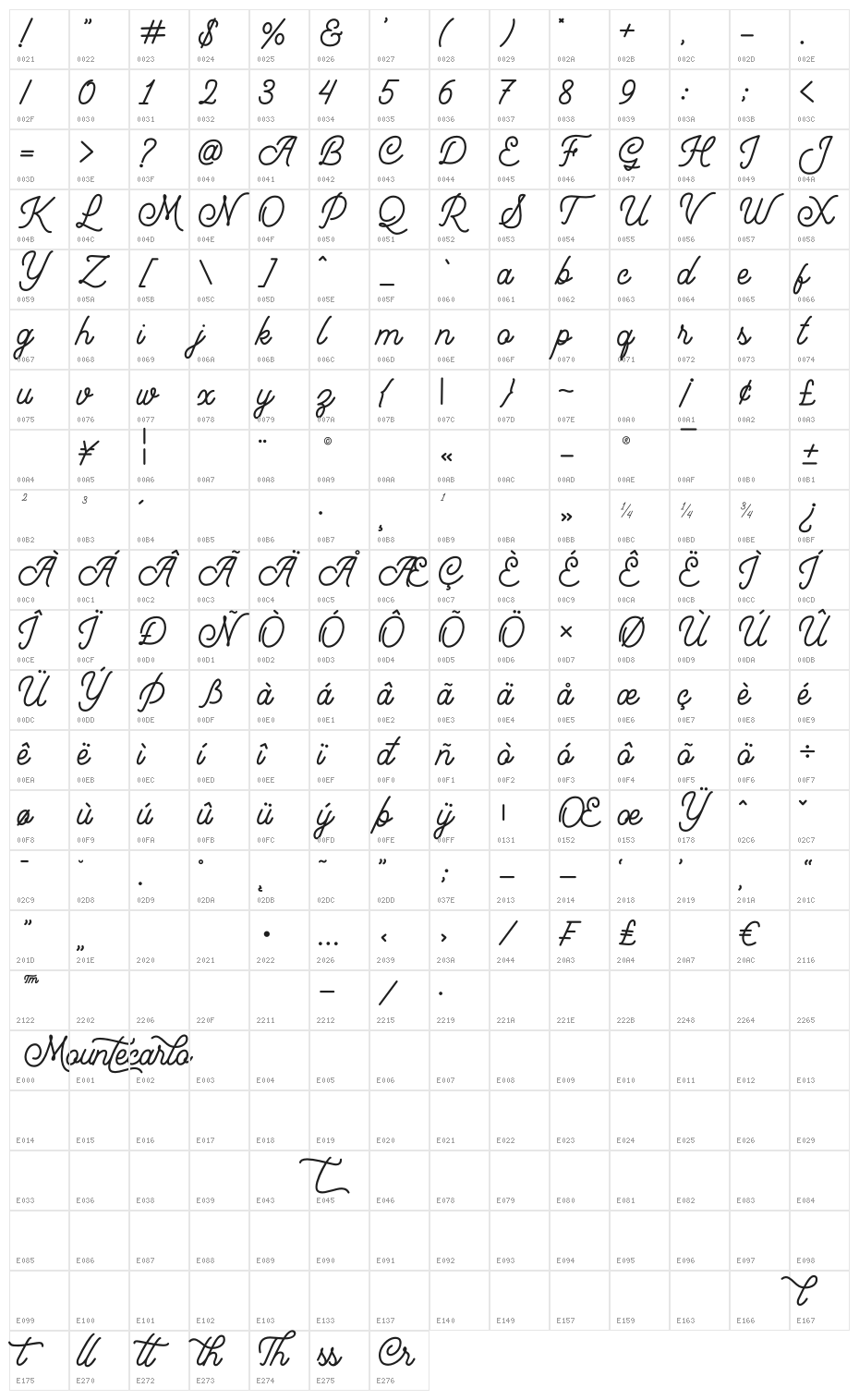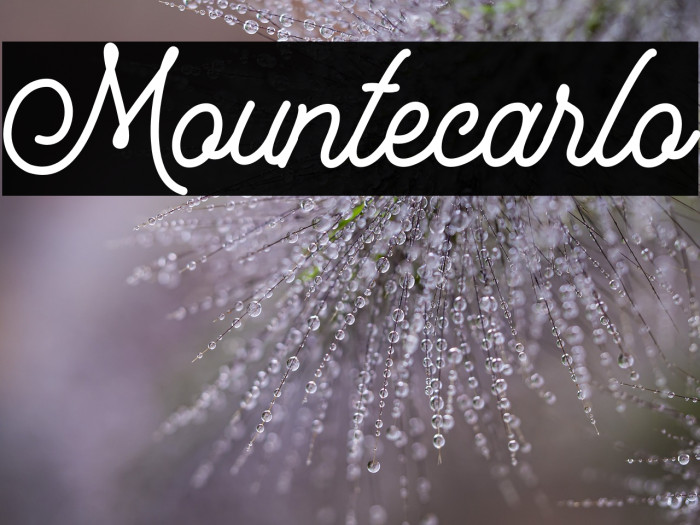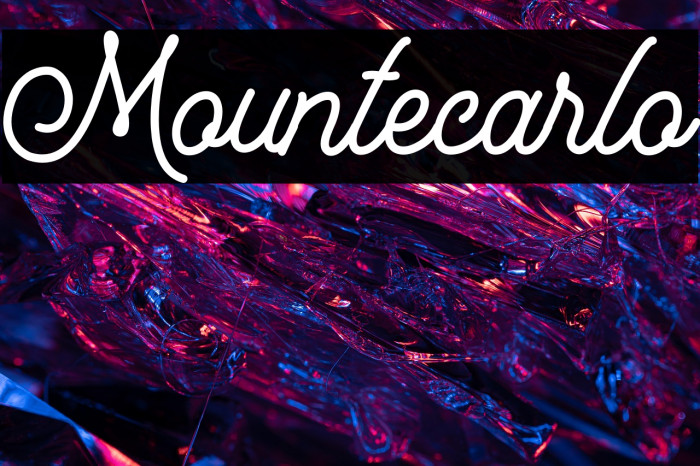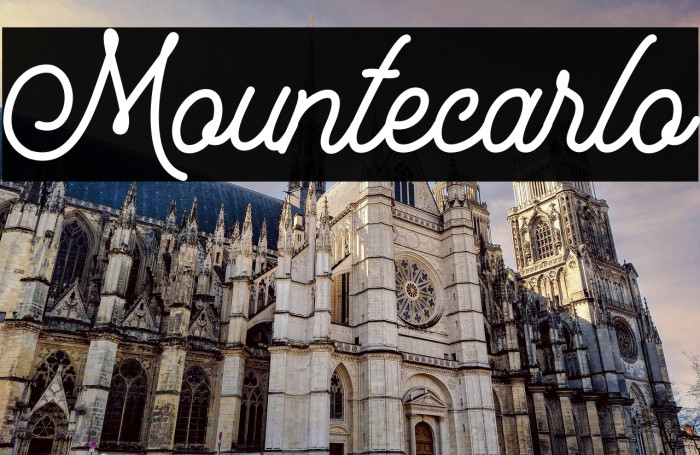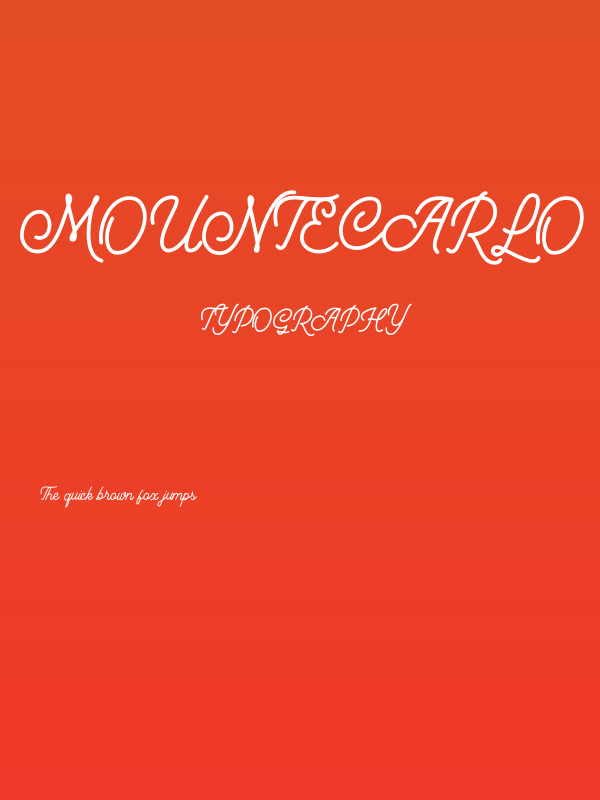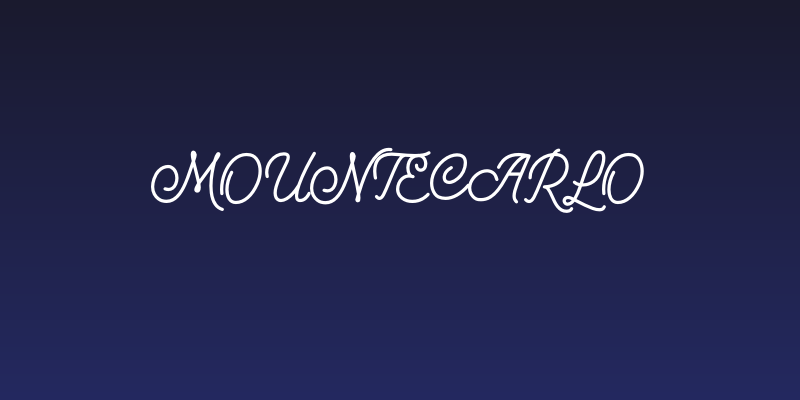
Mountecarlo Font
Mountecarlo Description
This elegant script font features a flowing, cursive style with smooth, interconnected letters that evoke a sense of sophistication and grace. The uppercase letters are slightly more ornate, with gentle curves and loops, while the lowercase letters maintain a consistent, fluid motion. The numerals are designed to match the overall aesthetic, providing a cohesive look across all characters. The special characters are thoughtfully integrated, ensuring versatility in various design contexts. This font is ideal for projects that require a touch of elegance and refinement.